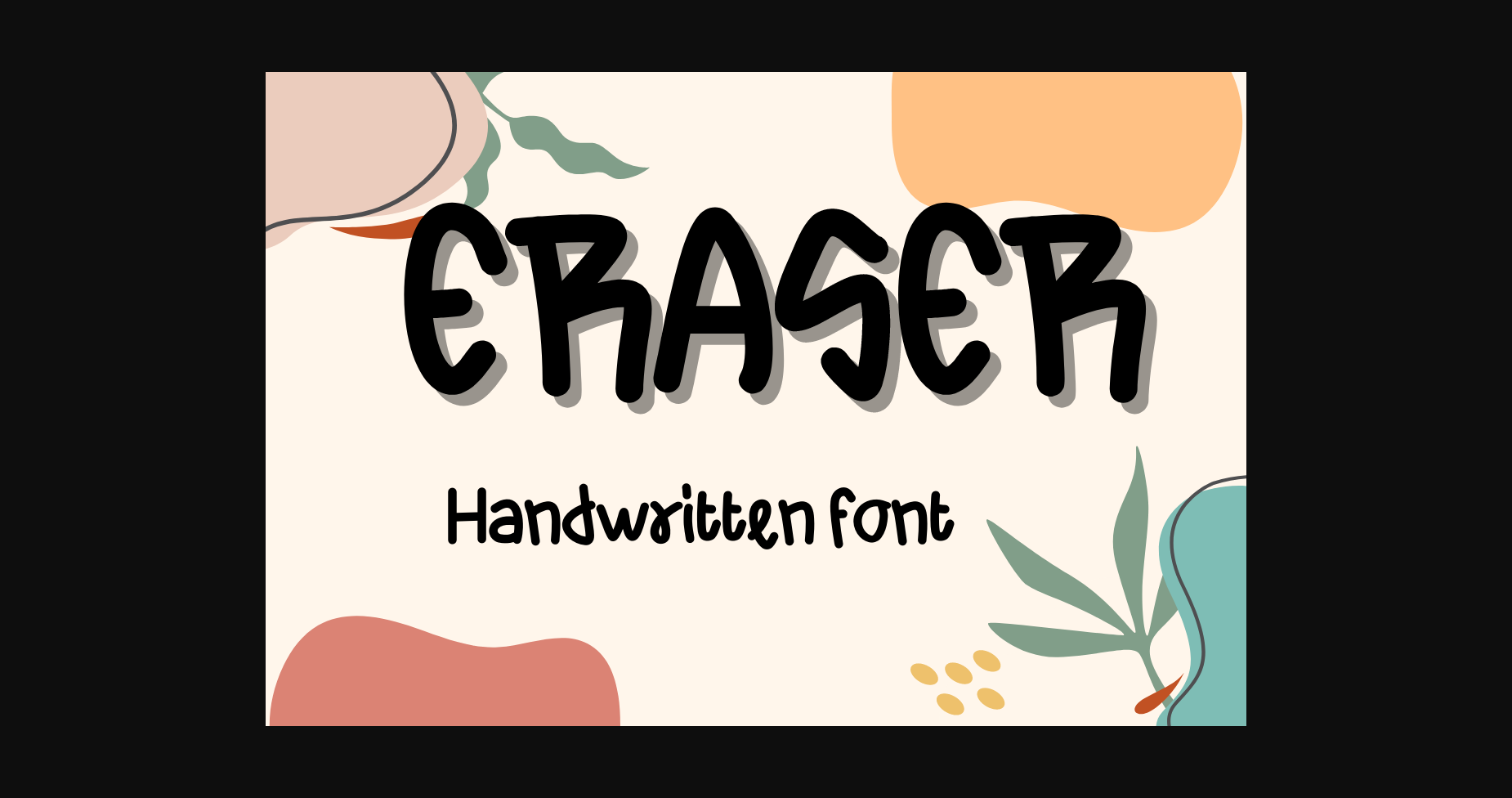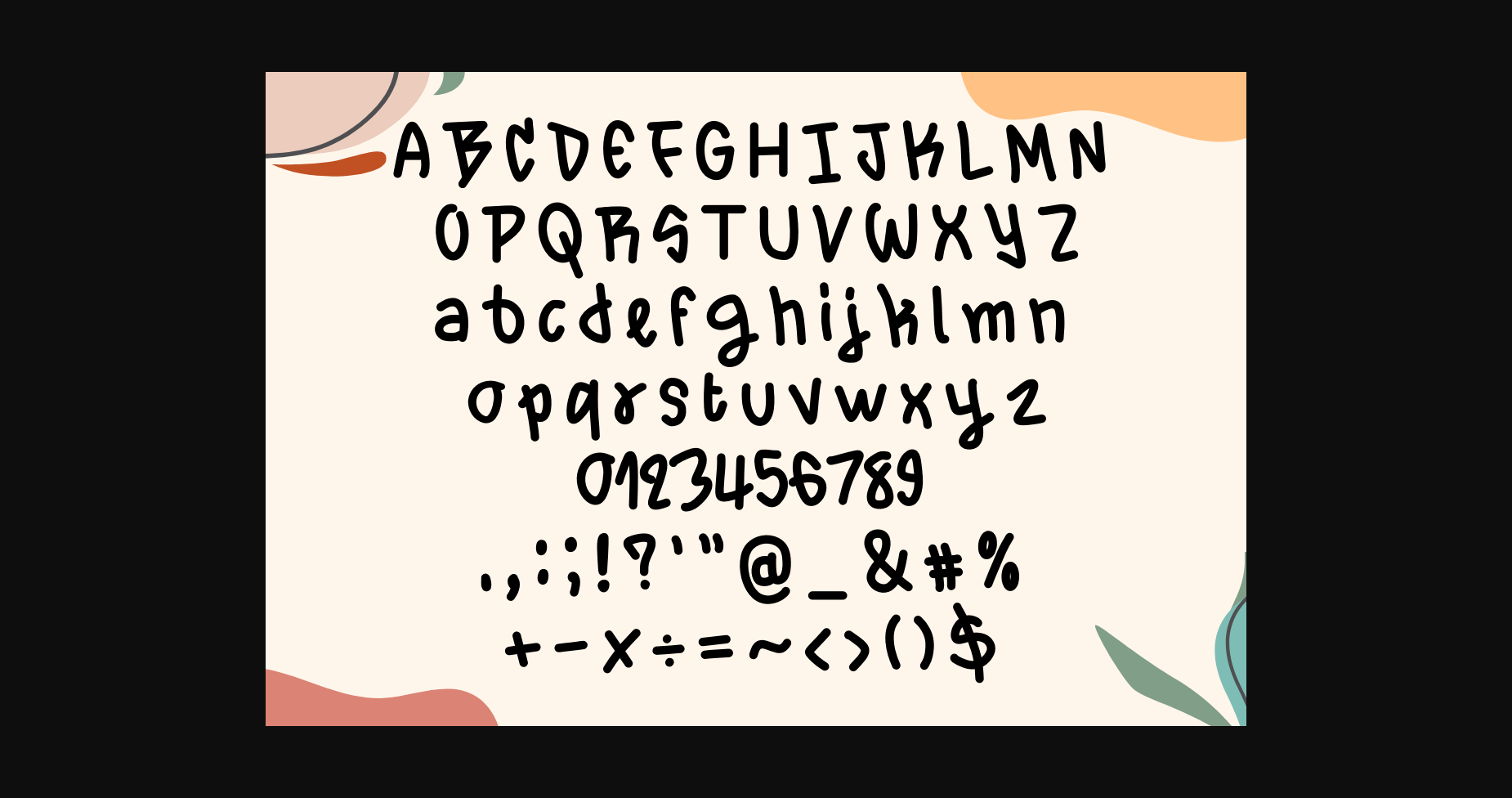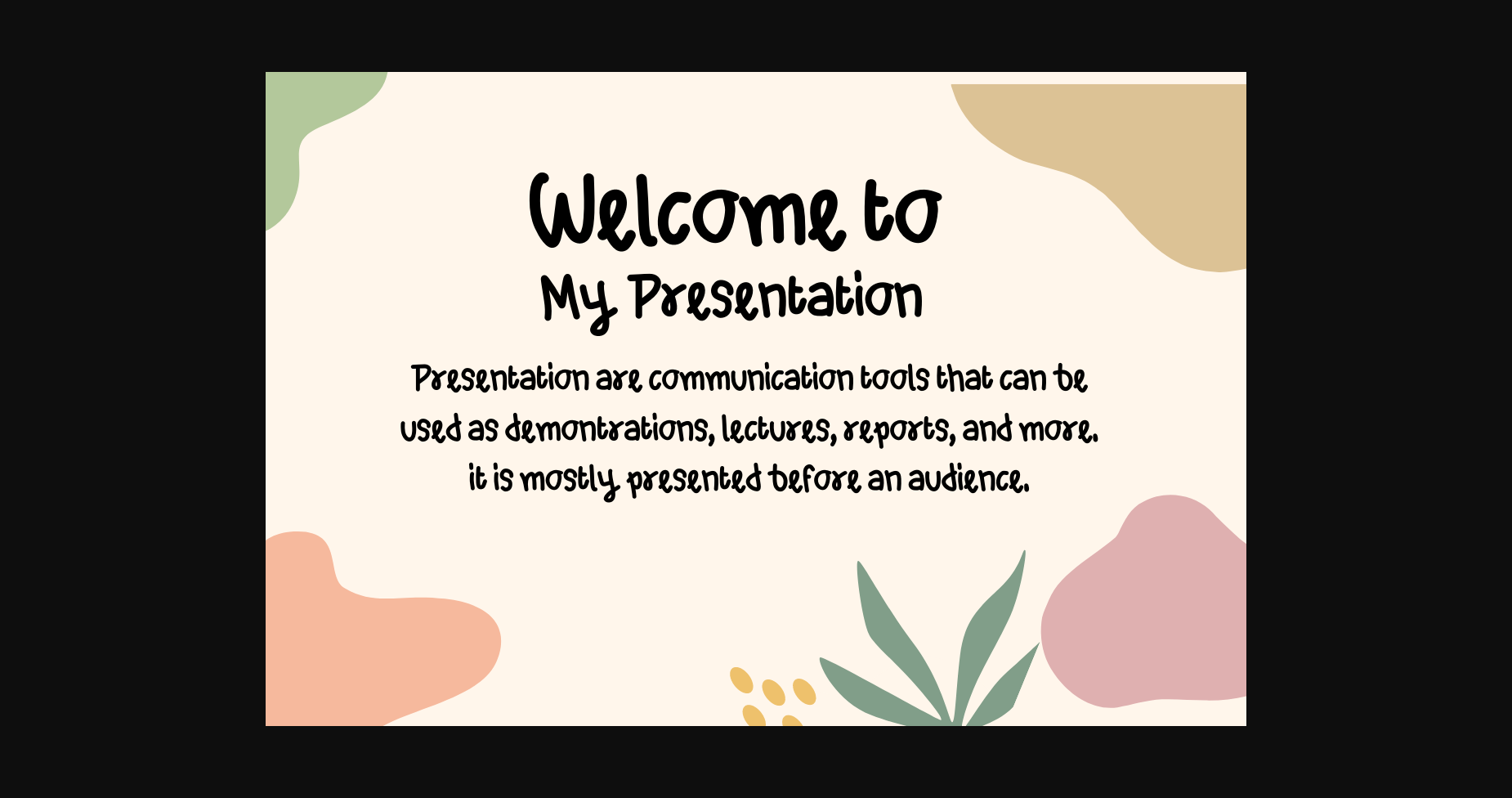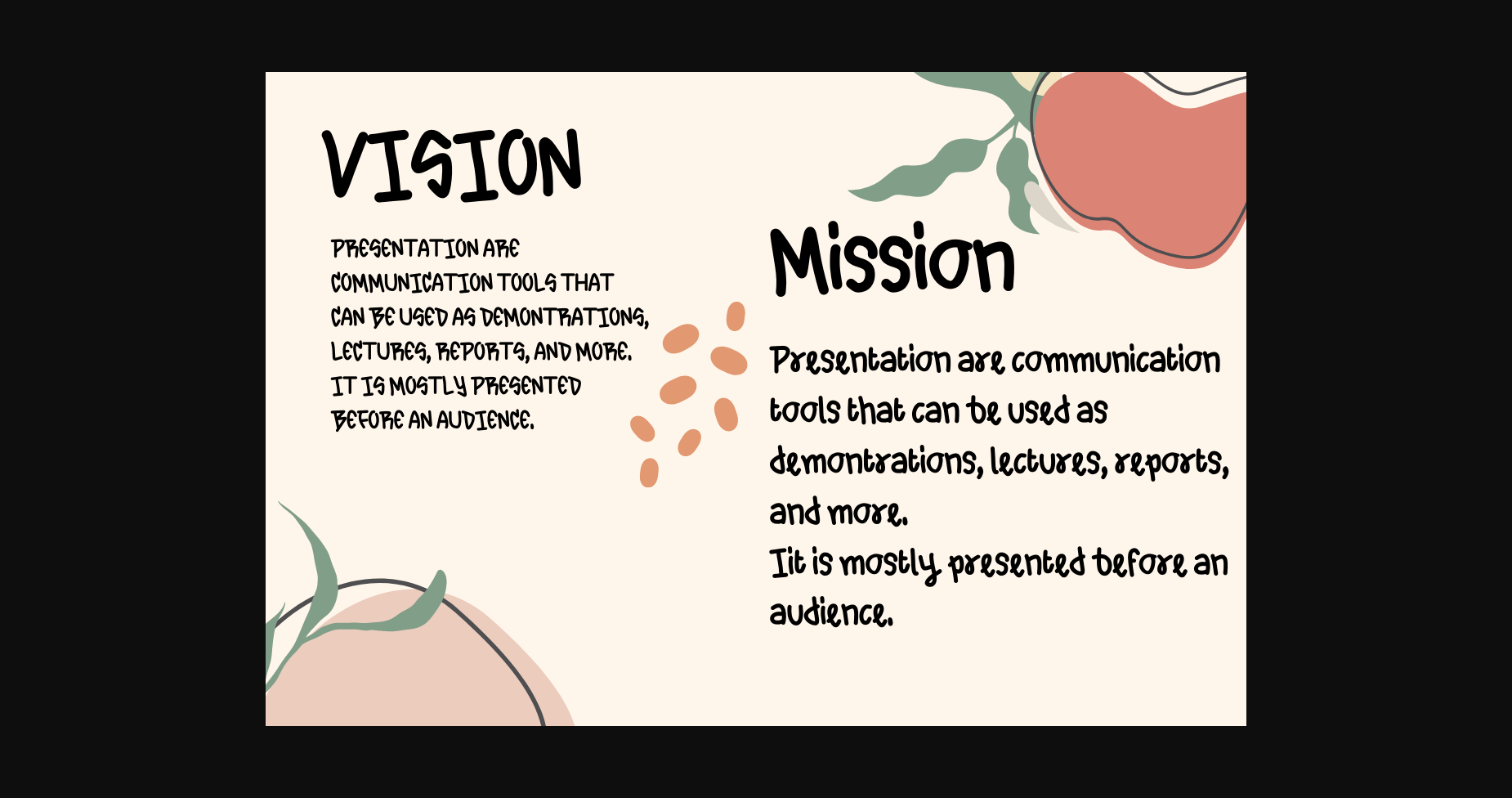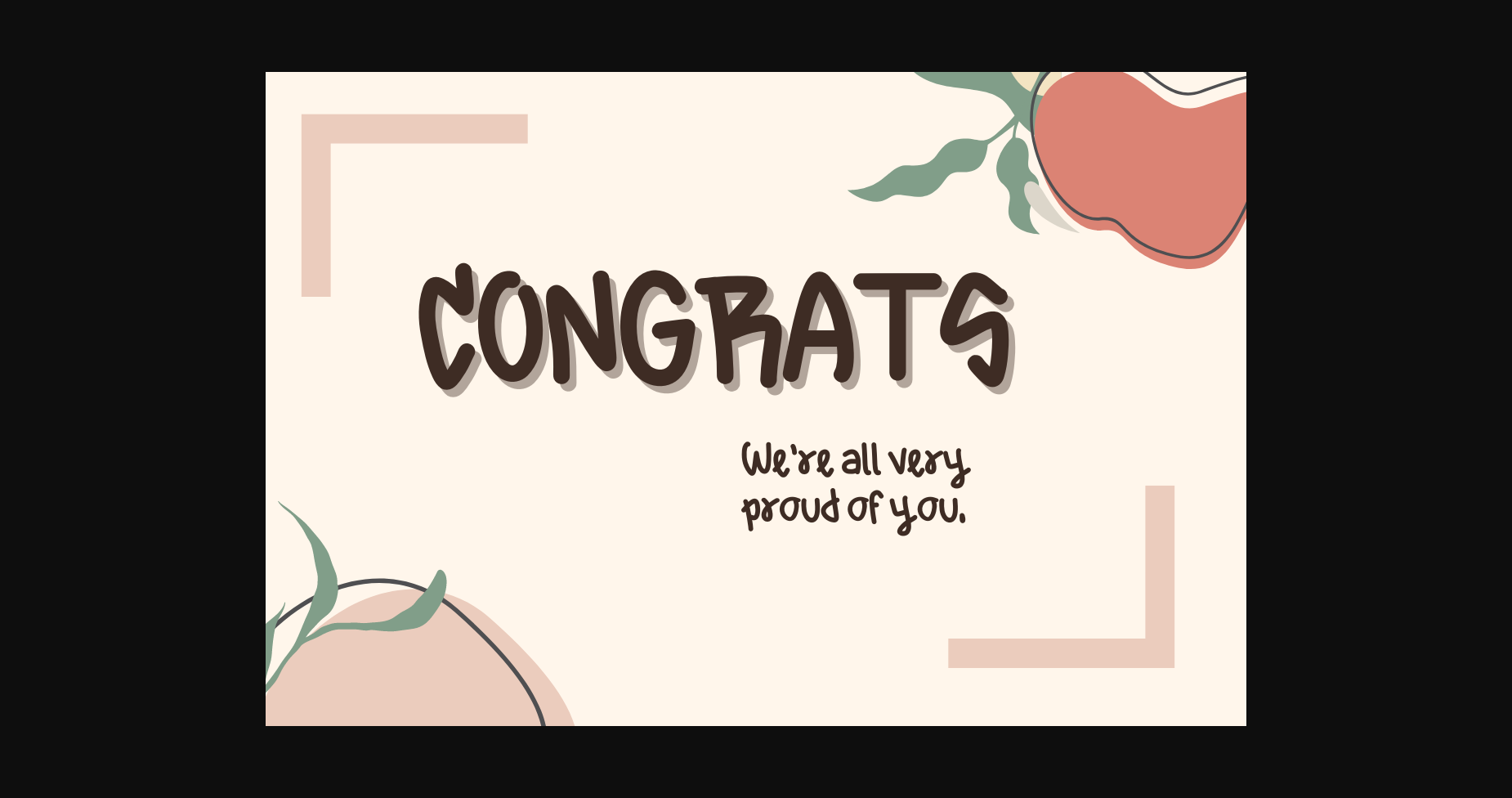
About Eraser Font
Eraser is a funky handwritten font. You can use it for taking notes, writing a diary, or making greeting cards. However, you can still use it for other designs, such as banners, content, mugs, cards, shirts, stationery, social media posts, and more!